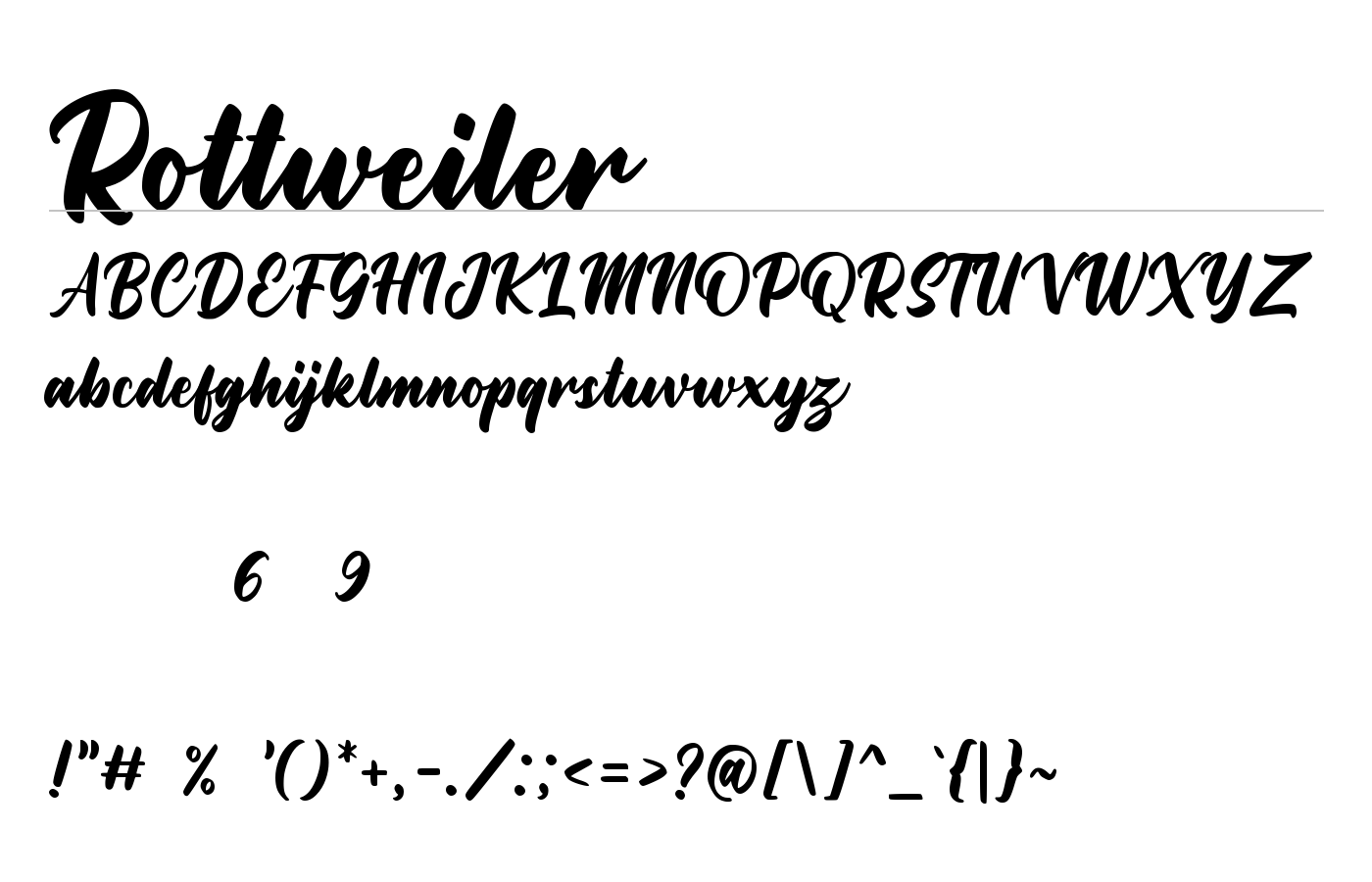
Rottweiler is a bold, brush-script style font with lively, flowing strokes that give it a confident yet approachable feel. Its slightly condensed letterforms and smooth curves make it ideal for eye-catching headlines or logos, especially in creative, casual, or trendy branding contexts. This font works well where a strong personality and readability combined with a handwritten charm are desired.
Rottweiler
About Rottweiler
| Font family | Rottweiler |
| Designer | Fajar Abdul Fatah - Nurf Designs |